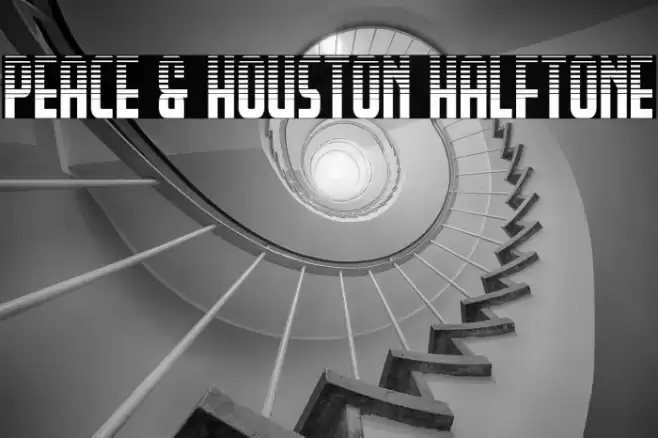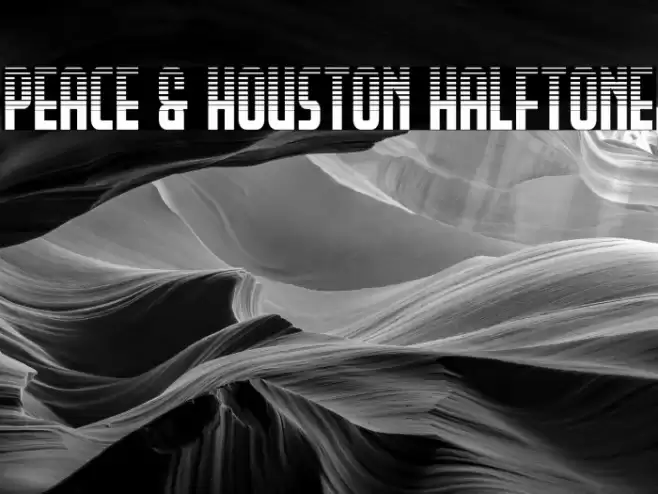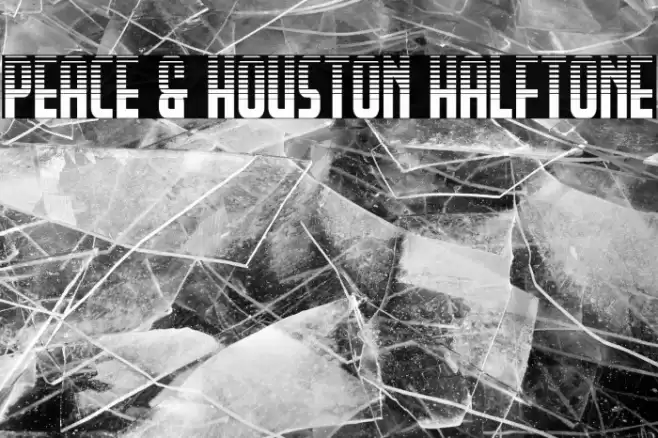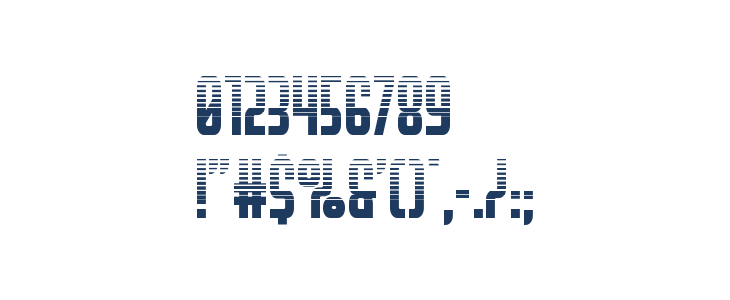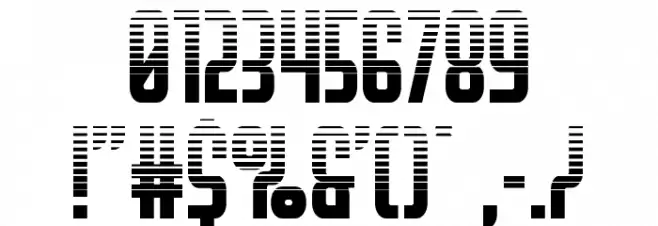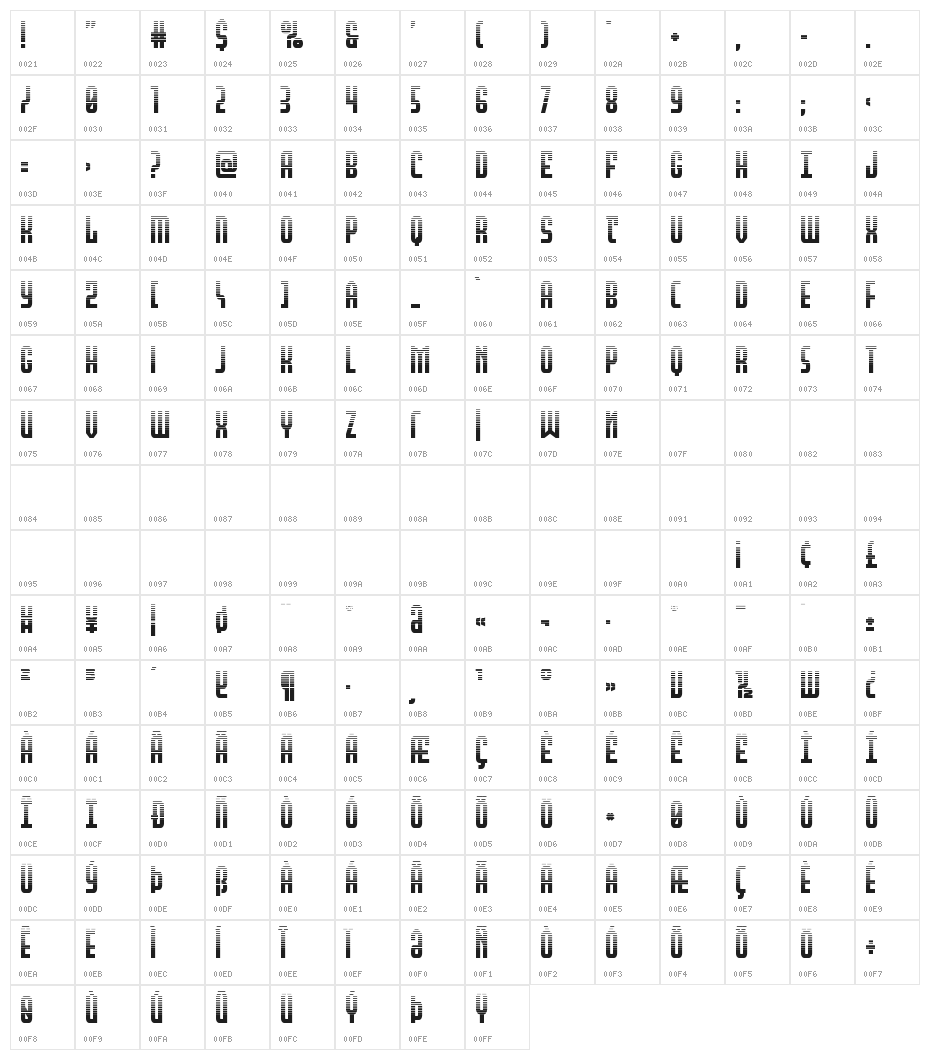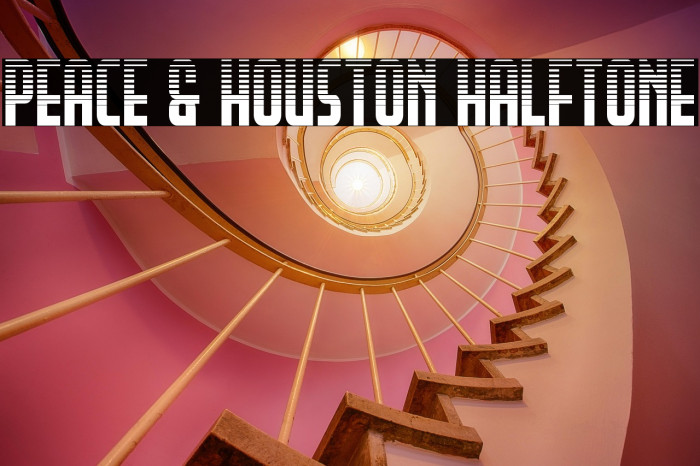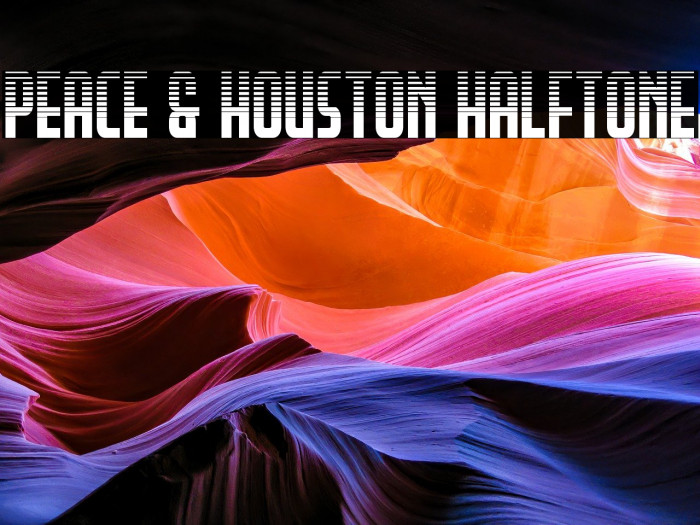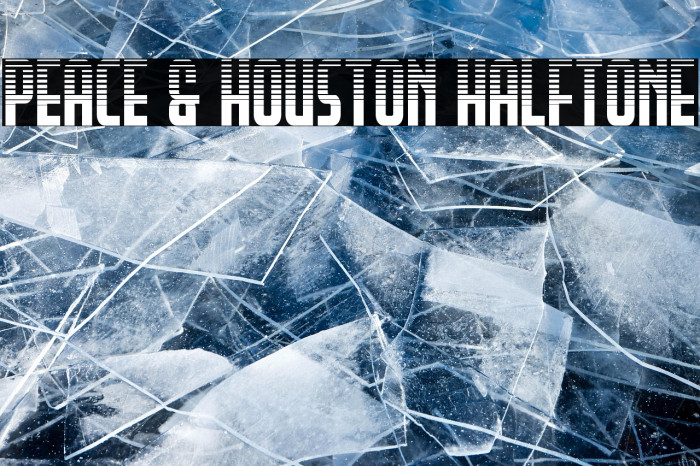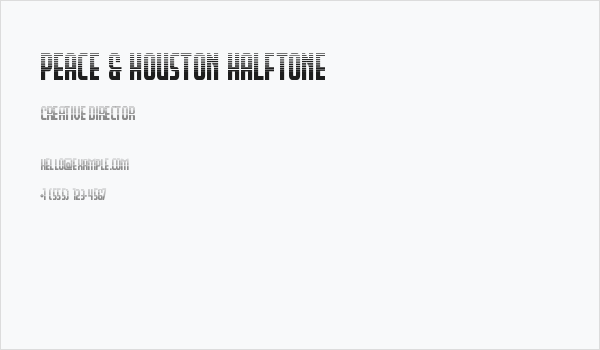
Peace & Houston Halftone Font
Peace & Houston Halftone Description
This font features a unique halftone effect, where each character is composed of horizontal lines that create a gradient from solid black to white. The uppercase and lowercase letters maintain a consistent width, giving the font a monospaced appearance, although it is not strictly monospaced. The design is bold and eye-catching, making it ideal for display purposes. The numbers and special characters follow the same halftone pattern, ensuring visual consistency across all glyphs. The overall style is modern and futuristic, with a decorative touch that sets it apart from traditional fonts. The boldness and distinct line pattern make it unsuitable for body text but perfect for headlines, posters, and branding projects that require a strong visual impact.
A bold, modern font with a unique halftone effect, ideal for display use from Uncategorized fonts.
- Proposed Projects: Perfect for posters, headlines, branding, and any project needing a strong visual impact.
- Overall Style: Modern, Decorative